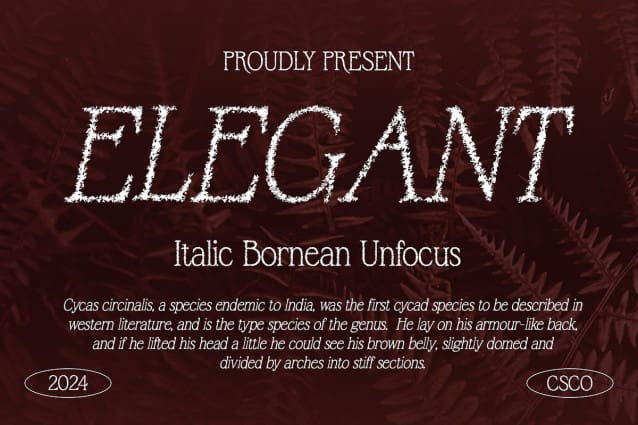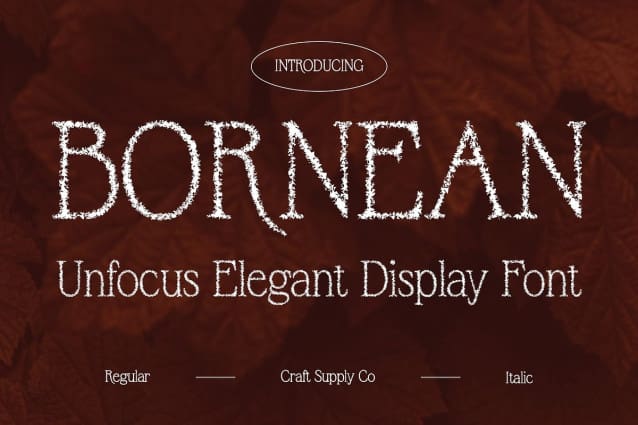
Bornean Unfocus Font
Bornean Unfocus Font: Redefining Display Typography. Dynamic Condensed Design Bornean Unfocus presents a condensed serif style with moderate contrast, ideal for eye-catching displays. Its sleek and compact design ensures maximum impact in various design contexts.
Innovative Unfocus Effect Setting it apart, This font features an innovative unfocus effect, adding a unique dimension to its appearance. This distinctive feature captivates attention and lends a contemporary edge to any project.
Tailored for Display Needs Crafted specifically for display purposes, This font excels in grabbing viewers’ attention. Whether used in advertising, branding, or editorial design, its bold and focused presence commands the spotlight.
Versatile Application Beyond its striking appearance, This font offers versatility in application. From digital platforms to print media, it adapts seamlessly to diverse design requirements, ensuring impactful communication.
Where Innovation Meets Impact This font redefines display typography with its dynamic condensed design and innovative unfocus effect. Tailored for maximum impact, it offers versatility and adaptability across various design projects. Elevate your designs with This font and make a lasting impression on your audience.